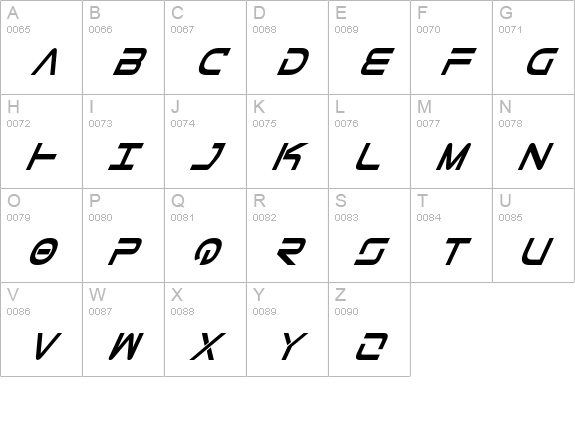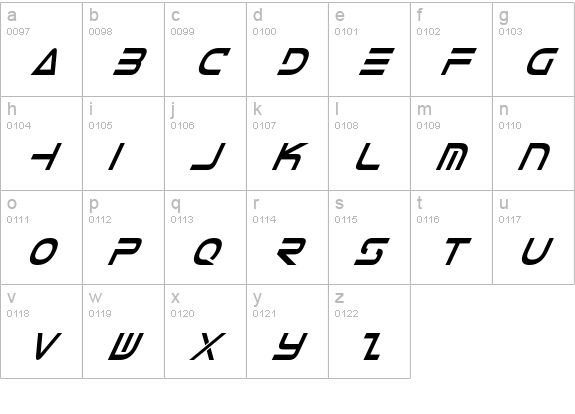
Tele-Marines Cond Bold Italic is a strong, high-contrast, condensed-width, italic variant in the Tele typeface family \xE2\x80\x94 well suited to headlines, attention-grabbing titles, and strong calls-to-action.
Tele-Marines Cond Bold Italic font is a stunning and eye-catching display typeface that is designed to make a bold statement. With its condensed and italicized design, this font exudes a sense of elegance and sophistication, making it perfect for headlines, logos, and other attention-grabbing designs. The Tele-Marines Cond Bold Italic font features unique and intricate letterforms that effortlessly blend the boldness of a condensed font with the graceful slant of italics. Its strong and assertive appearance commands attention and adds a touch of modernity to any design project. One of the best things about the Tele-Marines Cond Bold Italic font is that it is freely available to download at FontsMarket.com. This means that you can easily access this exceptional font without any hassle or cost. Whether you are a professional designer or simply someone looking to add a touch of style to your personal projects, this font is a valuable asset that you can use to enhance your creativity. With its versatility and striking appearance, the Tele-Marines Cond Bold Italic font is an excellent choice for a wide range of design applications. It adds a contemporary flair to branding materials, posters, advertisements, and any other design project that requires a strong and impactful visual presence. Download the Tele-Marines Cond Bold Italic font today from FontsMarket.com and let your creativity soar. With its free availability, you have nothing to lose but everything to gain. Elevate your designs with this remarkable font and make a lasting impression on your audience.